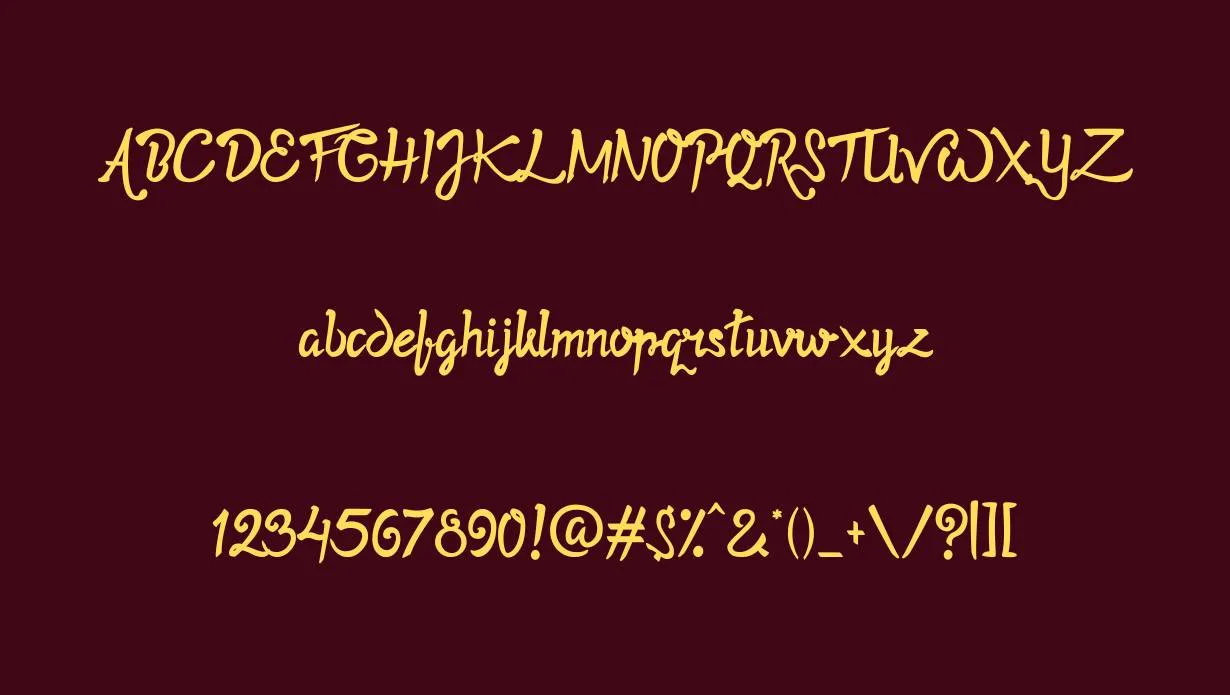
Let’s talk about another amazing script typeface Twopath Font. This beautiful font was designed by Edric Studios. It is a very friendly handwritten font. You can make many attractive designs by using this font like birthday decorations, home décor, and printing greeting cards. It has amazing features like it contains 109 characters, 115 glyphs, and 1000 units per Em.
The weight and width of the font are medium(normal). It has a full character set such as it contains small letters, capital letters, punctuation, symbols, and special characters. It supports the file format OpenType Font. It has two styles such as Twopath Regular and Twopath Shadow.